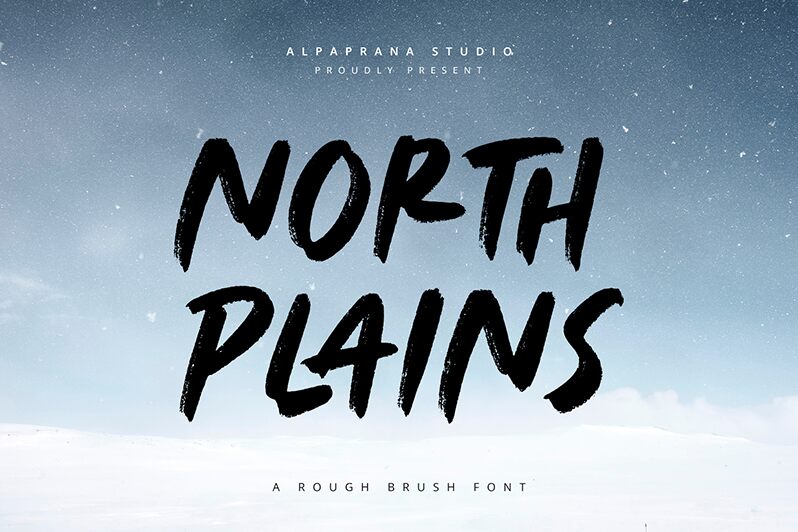
North Plains
**North Plains** by Alpaprana Studio exudes a dynamic and engaging charm. This brush-style font captivates with its expressive strokes and organic flow, reminiscent of hand-painted artistry. It brings an energetic and spontaneous feel, making it perfect for designs that seek to convey authenticity and creativity.
North Plains’ striking shapes and bold presence make it ideal for powerful headlines, eye-catching logos, and memorable branding elements. Its artistic flair suits projects that require a touch of individuality, such as event posters, product packaging, or social media graphics. With North Plains, your design will stand out with personality and style.